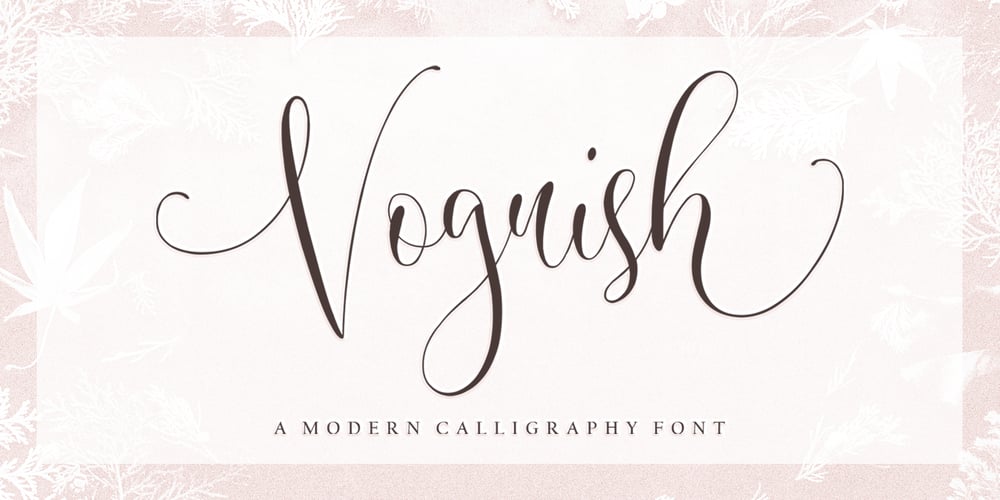
Voguish
Voguish font
Voguish Font Family was designed by Nurul Fajri Redy and published by Redy Studio. Voguish contains 1 styles and family package options. Voguish – Sophisticated CalligraphyAre you looking for an outstanding and unique font? Do you want to add some fun and playfulness to your creations? Then this is the font that you need! Say hello to Voguish – the new, exclusive, and elegant font! Voguish is a sophisticated font ideally crafted to easily create amazing results with a minimum of fuss. Voguish is a perfectly balanced font with unique, stylish letter shapes that have been combined with a sophisticated contemporary touch. Being a perfectly multifunctional font, it is the ideal fit for new season designs. It’s perfect for all those luxurious projects or designs that you want to stand out from the crowd! Download it now and make all your dreams come true! It’s so unique and elegant in look, that it will be the talk of your town!Voguish features: A full set of upper & lowercase characters Numbers & punctuation Gorgeous ligatures A full set of alternate upper & lowercase characters Uppercase beginning swashes Lowercase ending swashes Lowercase alternates characters Multilingual symbols PUA Encoded Characters – Fully accessible without additional design software. Feel free to give me a message if you have a problem or question. Thank you so much for taking the time to look at one of our products.